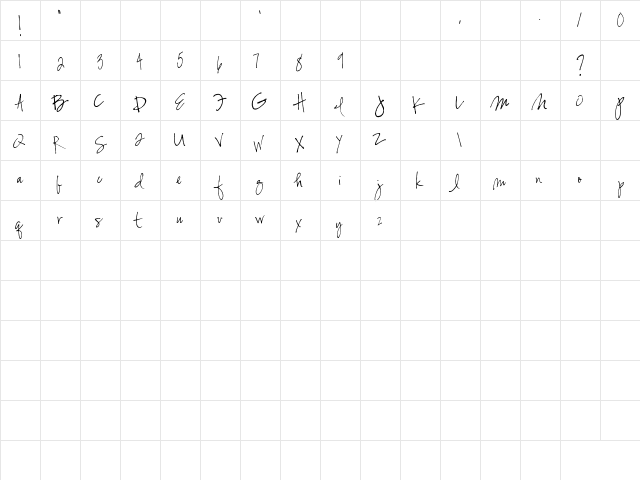
Susie's Hand Regular
Design Context for Susie's Hand Typeface
Susie's Hand flows with the natural rhythm of handwritten lettering, making it ideal for designs that call for warmth and personal expression.
Font Pairing: Combine Susie's Hand with a simple geometric sans for maximum contrast — the tension between flowing curves and clean structure is a classic typographic pairing.
Pro Tip: Use Susie's Hand for short runs of text — names, titles, or taglines. Extended body copy in script faces tires the eye quickly.